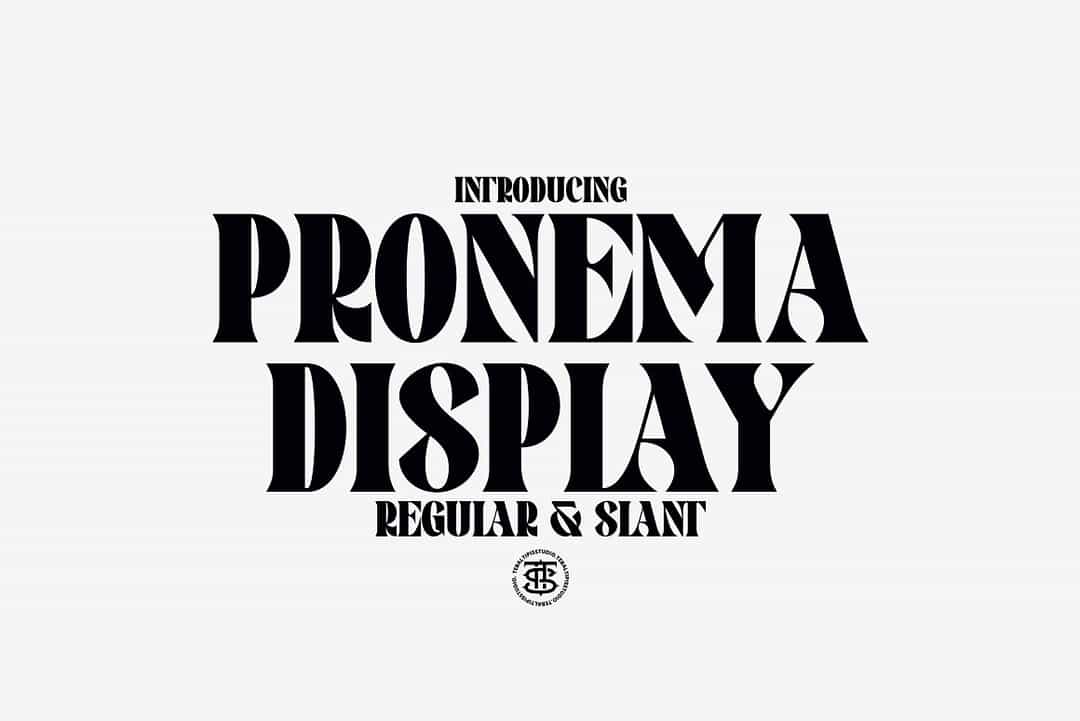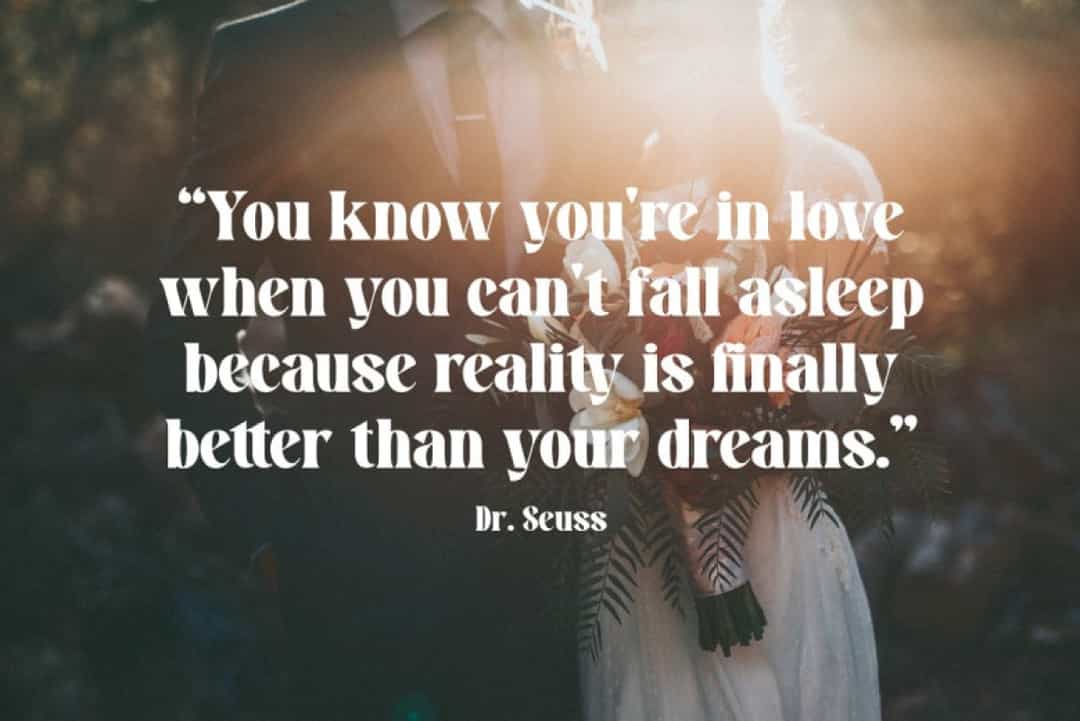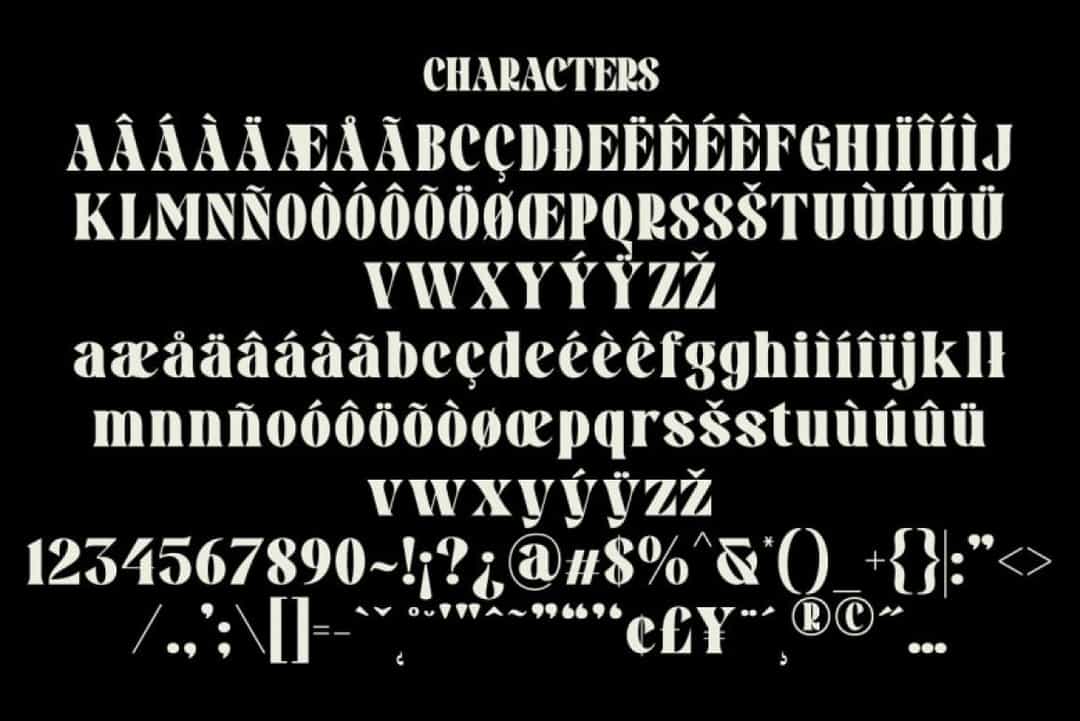
Discover Pronema Font, part of the Serif Display collection—a versatile and unique font perfect for adding a personal touch to your projects. Download it for free and enjoy crafting designs with style, from invitations to social media posts. This font is available exclusively for personal use, giving you the freedom to create without limits. Unlock your creativity with Pronema Font today!
Pronema Display offers multiple applications of serif typefaces: multipurpose serifs for serif-typeface classic elegant fancy display fonts and fancy display typefaces alike. You can mix and match these options to find your ideal typographic style – making Pronema Display perfect for your upcoming projects.